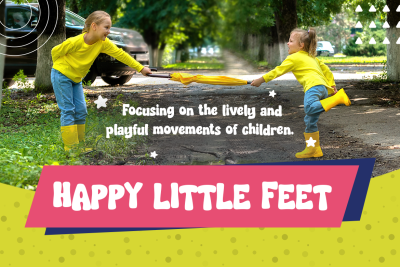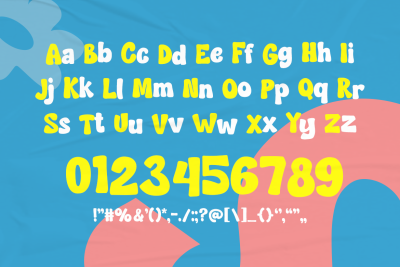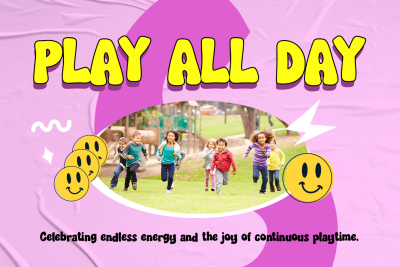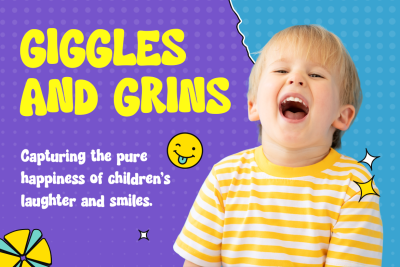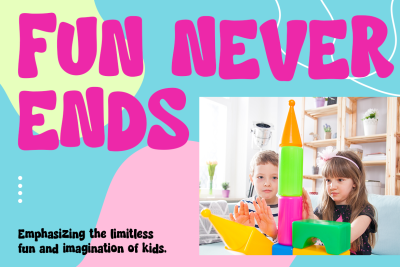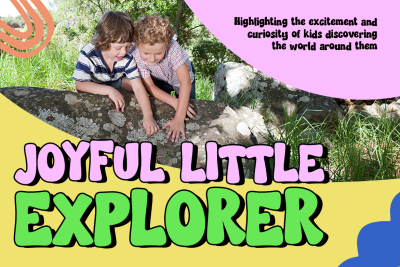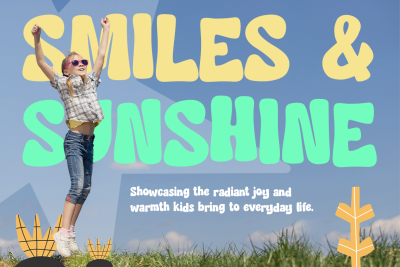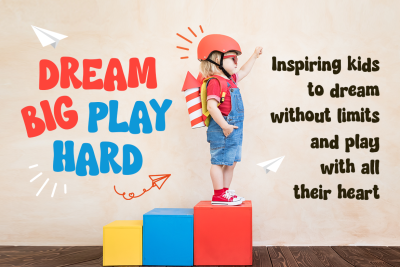
Makeba
Funny font Makeba is a bold and playful display typeface designed to bring fun and energy to any creative project. With its rounded, bouncy letterforms and thick strokes, this font exudes a friendly and lively personality. Moreover, its hand-drawn feel and slight irregularity add a unique charm, making it ideal for designs that need a fun, retro, or cartoon-inspired aesthetic.
Additionally, Makeba stands out due to its dynamic and high-contrast look, which ensures excellent readability while maintaining a bold and expressive style. The subtle shadows and 3D-like depth enhance its playful nature, making it perfect for engaging, eye-catching designs. Whether you’re creating branding, posters, or social media graphics, this font guarantees a vibrant and memorable presence. Furthermore, its versatility allows it to work seamlessly in both digital and print formats, making it a go-to choice for designers who want to add a cheerful and youthful vibe to their work.
Funny Font Makeba Perfect For
Makeba is an excellent choice for designers, brands, and content creators looking for a typeface with a bold and playful personality. Specifically, it works best for the following applications:
1. Retro and Pop-Art Designs: For example, use it to create posters, branding, and advertisements that need a fun, 90s or comic-style feel. Its bubbly letters and bold strokes make it a perfect fit for nostalgic and vintage-inspired designs.
2. Childrenโ€™s Books and Educational Materials: Similarly, it is ideal for kids’ books, flashcards, or classroom decorations. Since it has a fun and friendly look, it naturally attracts younger audiences.
3. Event Invitations and Party Decor: In particular, this font is great for birthday invitations, baby showers, and celebration banners. The vibrant and bubbly feel adds excitement and energy to any event.
4. Social Media Graphics and YouTube Thumbnails: Additionally, apply it to Instagram posts, video thumbnails, or online advertisements. Because of its bold and dynamic appearance, it easily grabs attention.
5. Merchandise and Apparel: Likewise, use it for T-shirt designs, stickers, mugs, or branding for youth-oriented products. The playful and slightly retro feel makes it stand out in fashion and merchandise.
6. Creative Branding and Logo Design: Furthermore, it works well for businesses in the creative, entertainment, and fashion industries. The fun and expressive style helps brands create an engaging and approachable identity.
7. Gaming and Cartoon-Themed Content: Finally, incorporate it into gaming interfaces, animated projects, or comic books. Its cartoonish look makes it an excellent choice for fun and interactive designs.
Overall, Funny font Makeba is the perfect choice for projects that need a bold, energetic, and nostalgic feel. Thanks to its playful and eye-catching aesthetic, it enhances everything from branding to event materials. Whether you’re designing for kids, social media, or retro-inspired campaigns, this font ensures a fun and memorable impact.